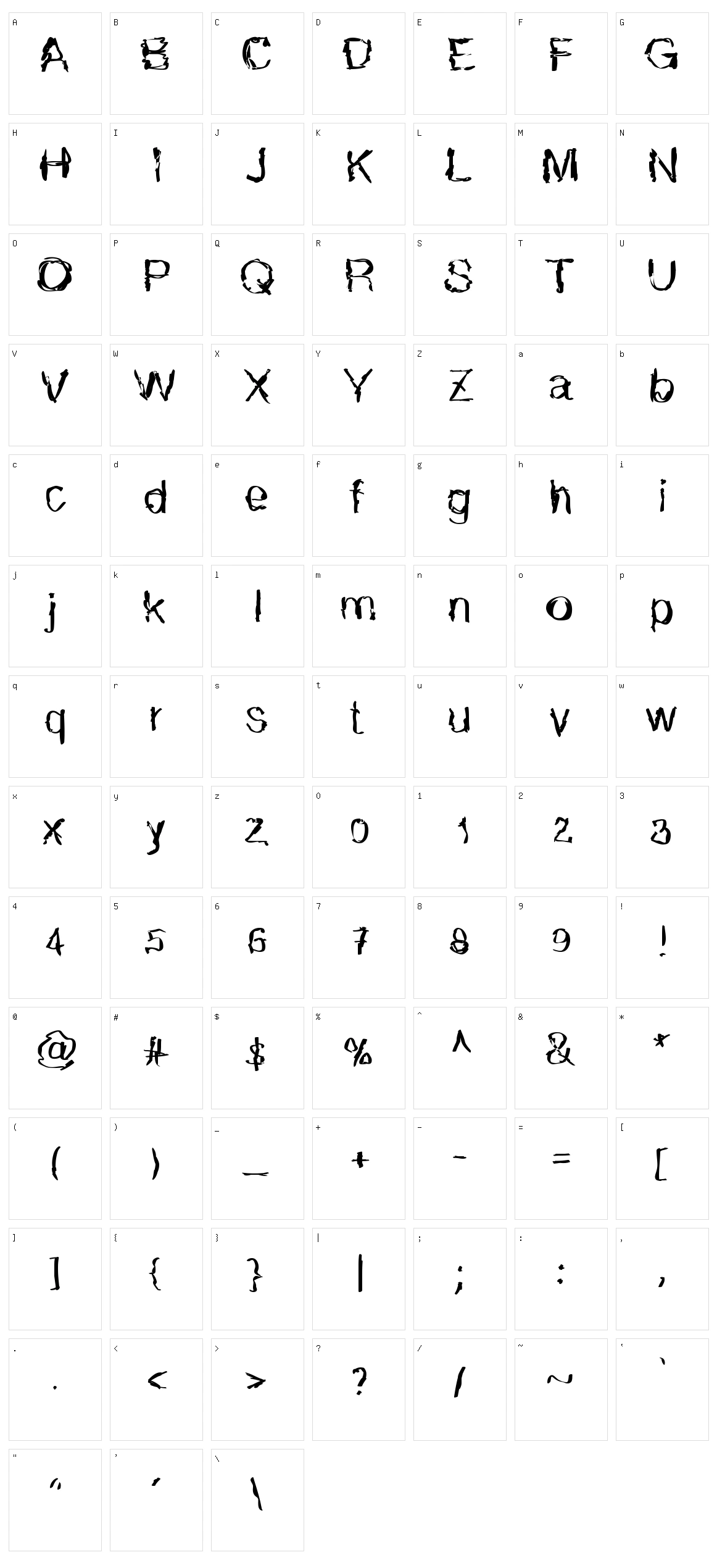
The free font N8ghtmare is carefully designed by Lionel Pailloncy, showcasing a thoughtful balance of creativity and usability and falls under the Horror font style. When you download the ZIP file, it contains only 75.54 KB of font files, making it lightweight and quick to download. Please review the license details below to understand permitted usage and distribution rights. If license information is not available, we recommend using this font for personal projects only or contacting the author directly for commercial usage permissions.